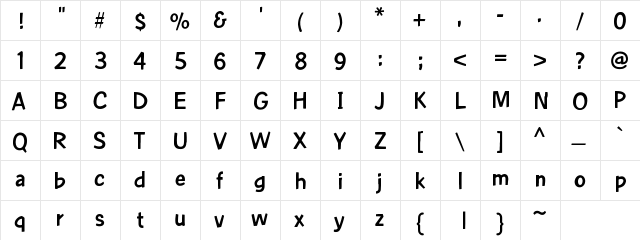
ContempoBoldPKA Regular
Design Context for ContempoBoldPKA Typeface
ContempoBoldPKA offers clean, dependable letterforms without strong stylistic allegiance, making it a practical choice for designers who need flexibility. The heavy weight commands attention and anchors typographic hierarchies.